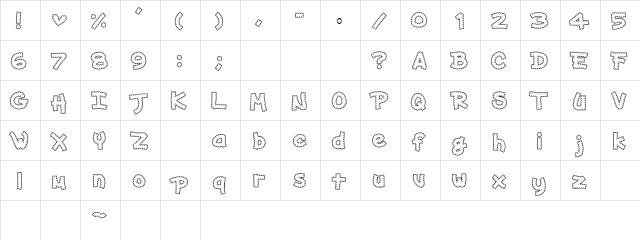
AKApplique White Regular
Design Context for AKApplique White Typeface
AKApplique White is a composed and adaptable typeface that performs quietly and consistently across a wide range of design contexts.